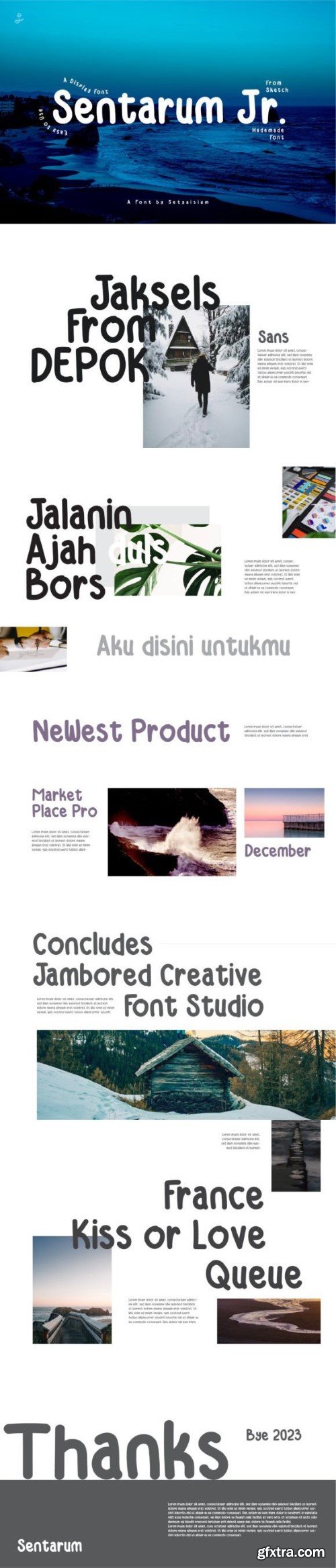
森特拉姆Jr字体
Sentarum Jr. is a fun and quirky display font. Whether you use it for cartoon-related designs, children's games, or just any creation that requires a lovely touch, this font will be an amazing choice.